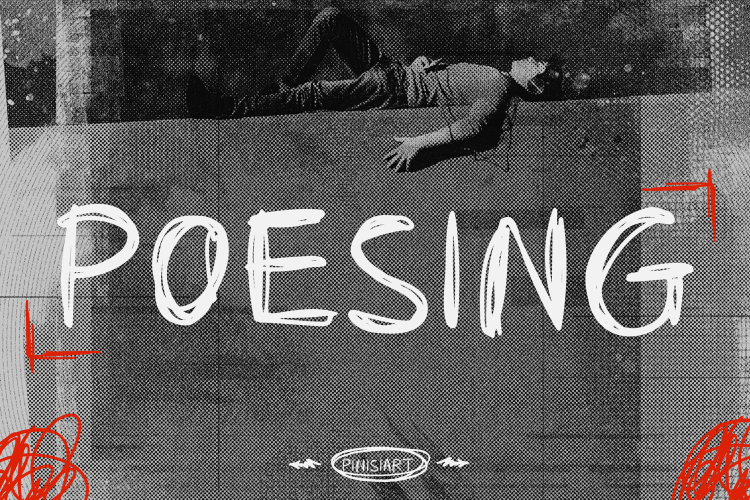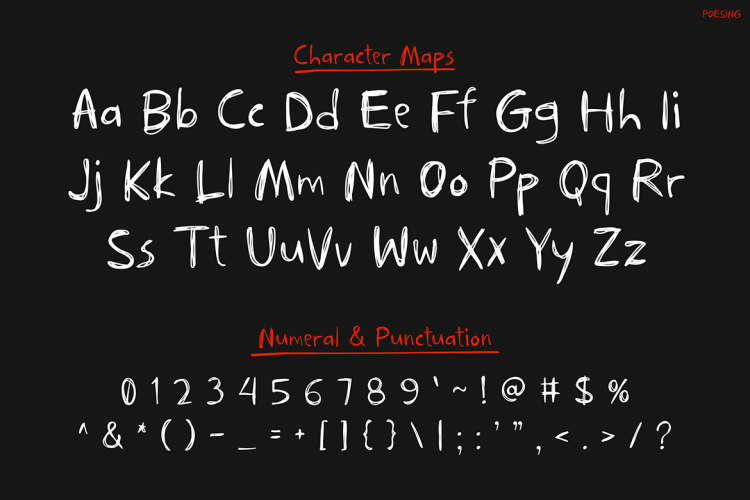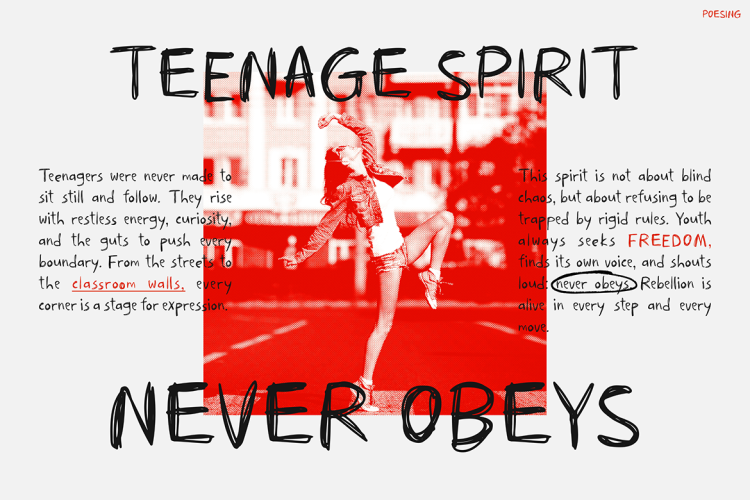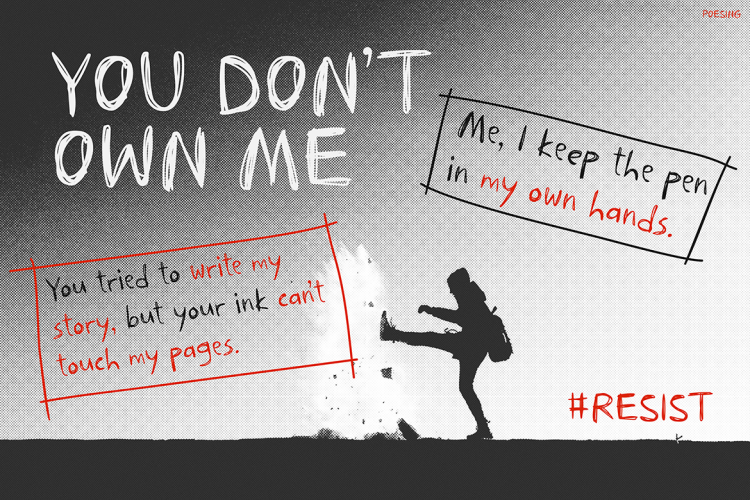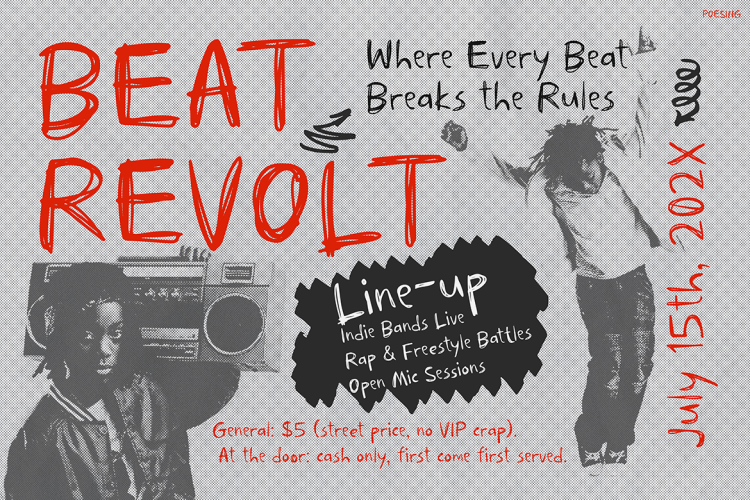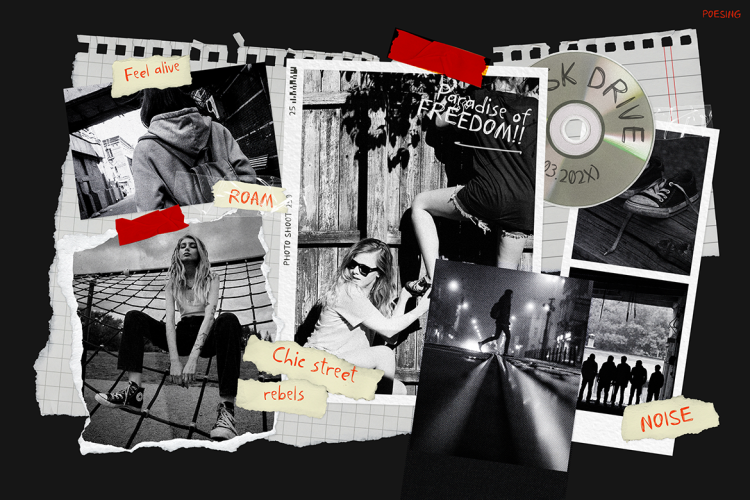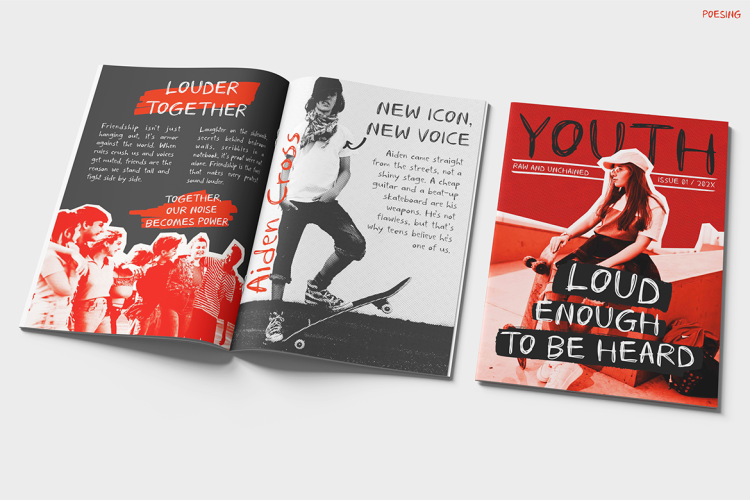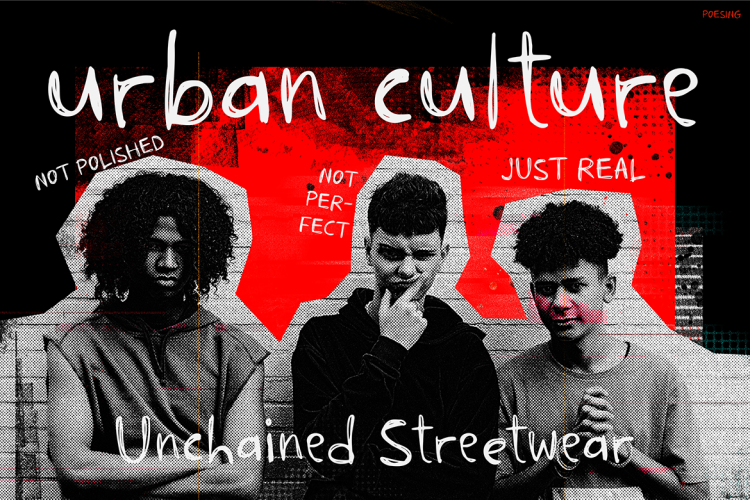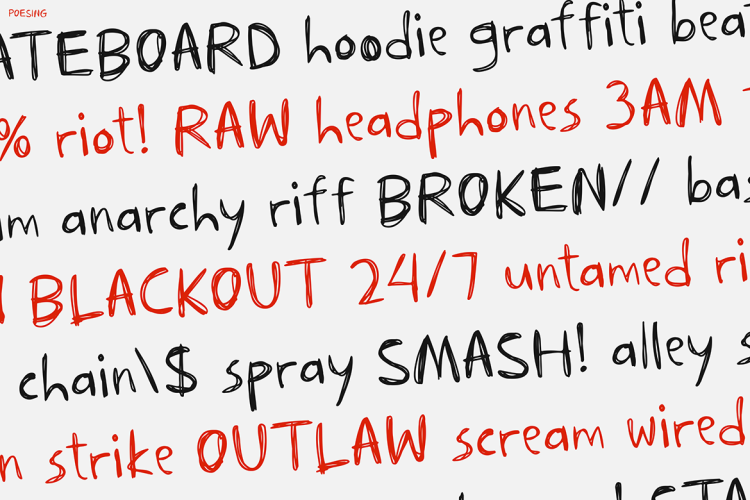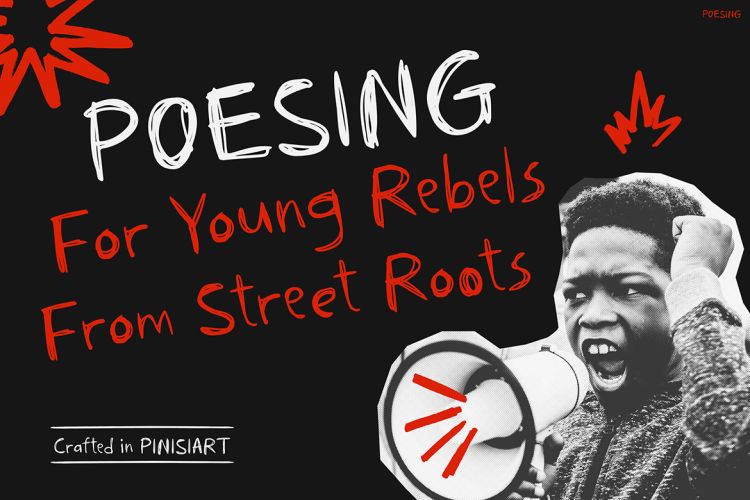
Raw Energy โ Bold Street Spirit โ Unchained Creativity
Handwriting Font Poesing doesnโt just existโit shouts rebellion in every stroke. Unlike polished typefaces, this font embraces imperfections and turns them into raw visual power. Moreover, its jagged edges, bold slants, and scribbled textures inject authenticity that transforms ordinary words into loud statements. As a result, every design you create explodes with fearless energy.
Graffiti walls, protest posters, and underground culture fuel its inspiration. Therefore, Poesing captures the untamed youth spirit that refuses silence and demands visibility. On the other hand, it adapts seamlessly to modern layouts, proving both versatile and bold. In addition, the font fuses gritty artistry with bold expression, ensuring your projects always command attention.
Who Can Use Handwriting Font Poesing
Handwriting Font Poesing empowers rebels, creators, and visionaries who live to stand out. For example, streetwear brands inject urban authenticity into logos, packaging, and campaigns when they choose Poesing. Likewise, music artists and promoters amplify their raw sound through posters, zines, and album covers.
In addition, activist groups and youth campaigns spread powerful resistance messages more effectively with this fontโs striking strokes. Similarly, content creators and social media designers disrupt crowded feeds by using its rebellious voice. Furthermore, magazines and editorial layouts deliver bold headlines that instantly grab attention when they apply Poesing to their designs.
Therefore, whether your work revolves around fashion, music, activism, or bold personal expression, you can harness Poesing to gain the rebellious edge your project demands.
Finally, stop blending in and start breaking through. Poesing gives you more than typographyโit delivers attitude, movement, and raw creativity in every letter. Thus, when you want your words to carry undeniable power, this font stands ready. Donโt just design. Make a statement. Choose Handwriting Font Poesing today and let your message roar with street-born energy.